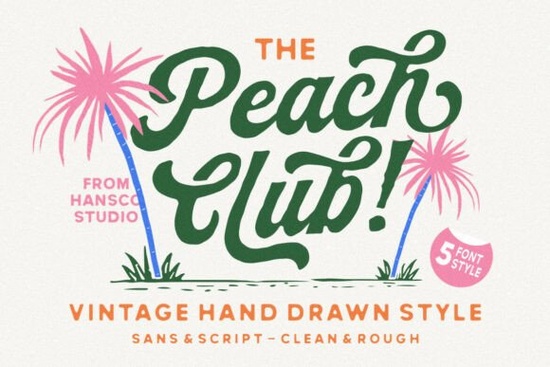
A lot of script fonts lean too far into either polished formality or rough illegibility. If you are looking for a handwritten style that feels genuinely warm without sacrificing readability, the Peach Club Font bundle deserves a close look. It pairs a hand-drawn script with a clean sans serif, giving you flexibility right out of the box. This isn't just one font it's a small system designed to help your text stand out while staying easy to read.
What makes Peach Club Font different from other script fonts?
Many script fonts feel digitized and stiff. Peach Club intentionally keeps those natural hand-drawn imperfections. You get smooth curves that still look like they were made with a real pen. This makes a big difference in projects where you want a personal, nostalgic touch. The natural strokes add warmth to branding work that a standard font just can't match.
Another thing is the package itself. You are not just getting one style. The bundle includes a complementary sans serif. This saves you the hassle of hunting for a second font that actually matches. The script handles the personality, and the sans serif handles the readability. If you prefer a bolder hand-drawn look, the Santa Catalina font provides a nice counterpoint to Peach Club's lighter touch.
Can I really use it for professional branding and logos?
Absolutely. The classic script lettering is refined enough for logos and wordmarks. The imperfections make it feel authentic, which is a huge plus for small businesses or packaging design. Whether you are working on a coffee label, a boutique logo, or a wedding invitation, the combination of script and sans serif covers all your bases.
If you work with print-on-demand, this kind of versatility is gold. You can use the script for a t-shirt design headline and the sans serif for the fine print or description. For a similar handcrafted feel in a different style, you might also like the Handmade font bundle, which focuses on textured brush strokes.
How does the sans serif pairing actually work in layouts?
This is where Peach Club saves you a lot of time. A standalone script often looks messy when used for body text. The included clean sans serif is designed for exactly that. It takes the cues from the script like letter proportions and spacing and creates a neat, readable counterpart.
You can use the script for your main headline and switch to the sans serif for subheadings or paragraphs. It keeps your project looking cohesive without you having to manually adjust weights or styles. For layouts that need strict geometric order, the Alignment font set is a great companion piece to study for understanding spacing discipline.
Who benefits most from this font bundle?
This bundle is built for anyone who creates content regularly. Specifically, it helps:
- Small business owners who want a consistent look across their website and packaging.
- Print-on-demand sellers who need quick, attractive designs for apparel and accessories.
- Hobbyists and crafters working on scrapbooking, invitations, or home decor projects.
- Graphic designers who want a reliable go-to script pair for client work.
If you often create vintage-inspired artwork, this pairing fits right in. For a more decorative, festive alternative, the Christmas Lights font brings a playful energy to seasonal projects.
A quick checklist for using hand-drawn fonts effectively
- Check the language support: Make sure the glyphs cover your required characters. Peach Club typically includes a wide range of standard letters and punctuation.
- Pair with neutral colors: Hand-drawn scripts pop best against solid, muted backgrounds. Let the texture of the font do the talking.
- Adjust leading and tracking: Script fonts often need a little extra space between lines to keep them legible, especially in paragraphs.
- Use the right file format: Install the OTF or TTF file for standard desktop use. If you are using the font for digital cutting machines, check if the font supports the features you need.
- Test it in a mockup: Before committing to a large batch of prints, test the font on a mockup. See how the script looks at different sizes. For a classic and elegant script style, compare it with the Olivia Scatcer font to see which thickness fits your project.
Peach Club gives you a ready-made pairing that removes the guesswork from matching fonts. Whether you are designing a logo or formatting a page layout, the flexibility of having a hand-drawn script and a structured sans serif makes your workflow faster. Next time you start a project, let the script take the lead and use the sans serif to support it.